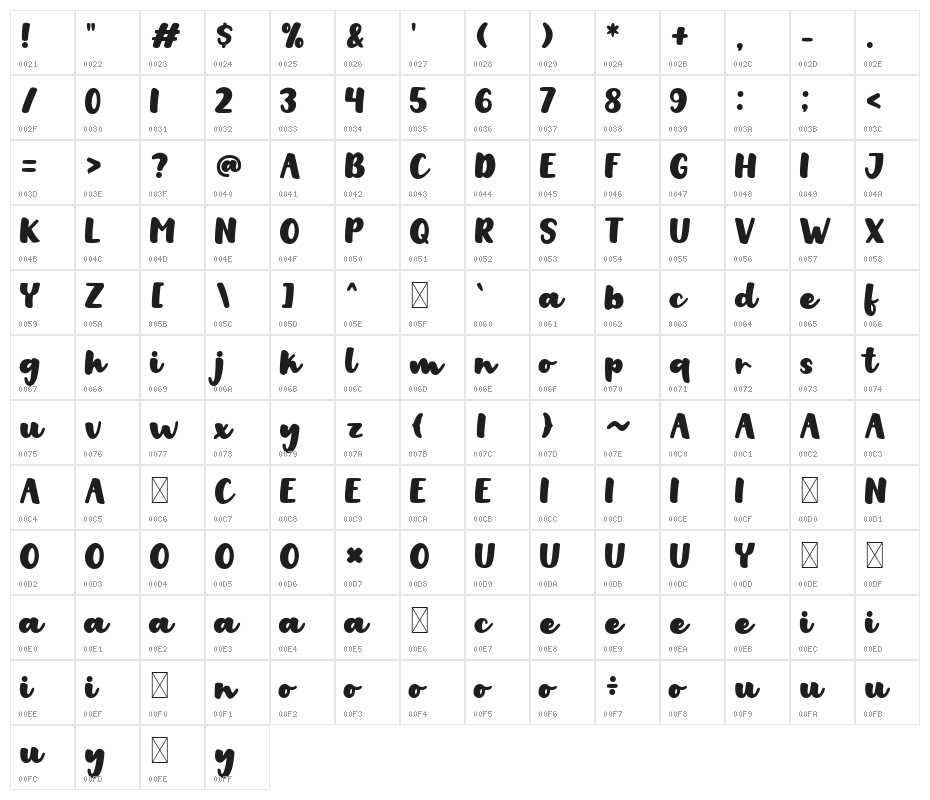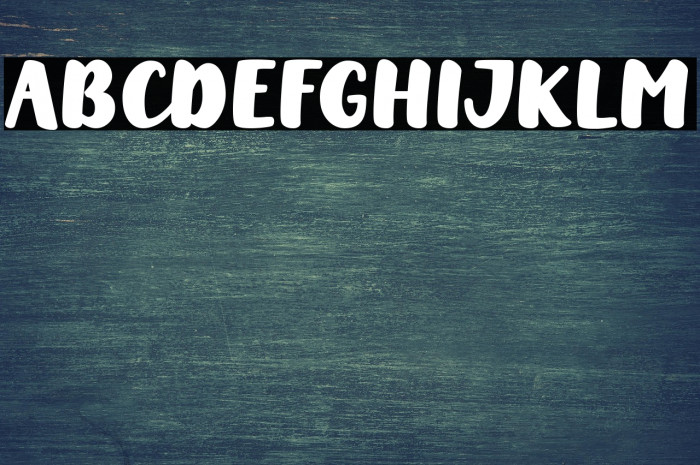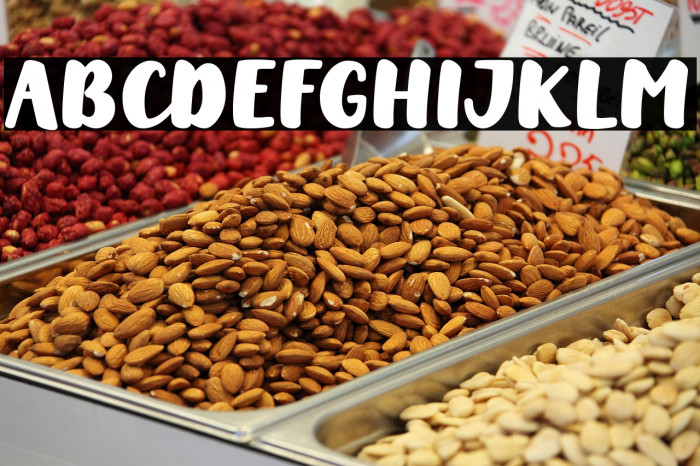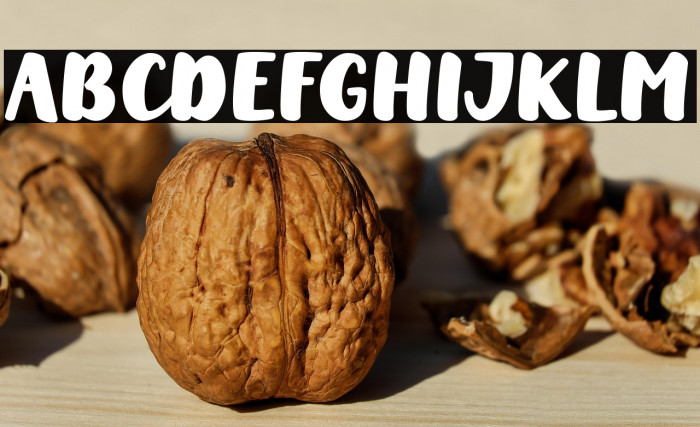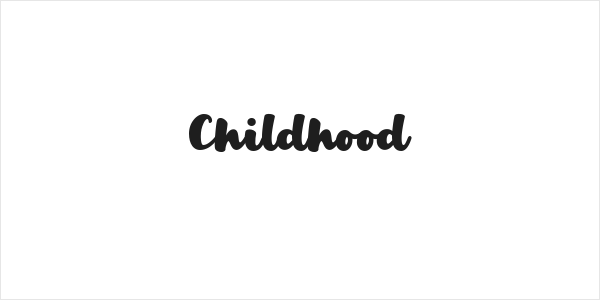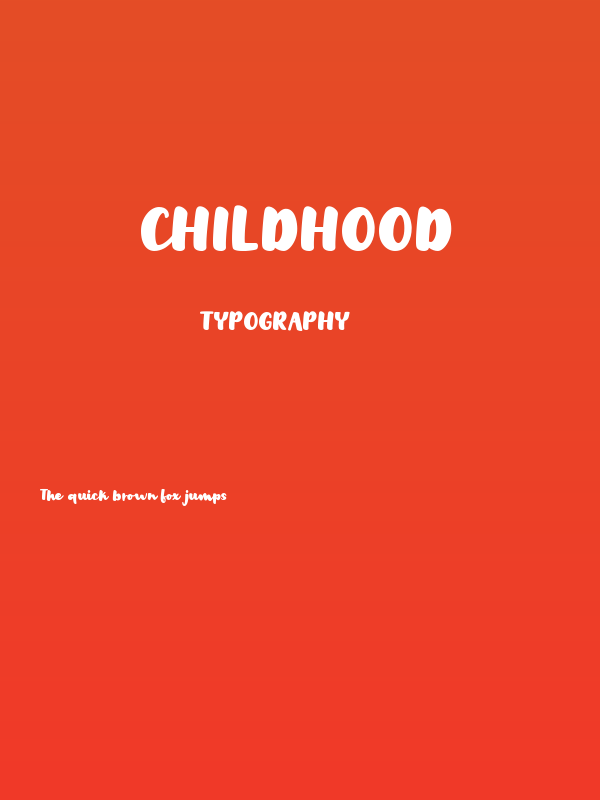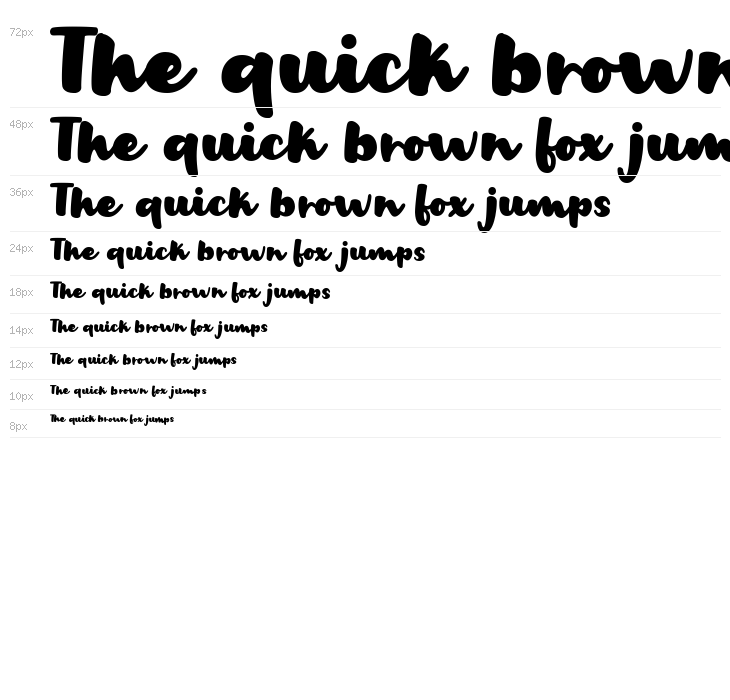
Childhood Font
Childhood Description
This playful and bold font features a handwritten style with smooth, rounded edges and a slightly irregular baseline, giving it a whimsical and friendly appearance. The uppercase letters are bold and prominent, while the lowercase letters maintain a consistent flow, enhancing readability. Numbers and special characters are designed with the same playful aesthetic, making them suitable for creative and informal contexts. The font's thick strokes and rounded forms convey a sense of warmth and approachability, ideal for projects that aim to evoke nostalgia or a sense of fun.